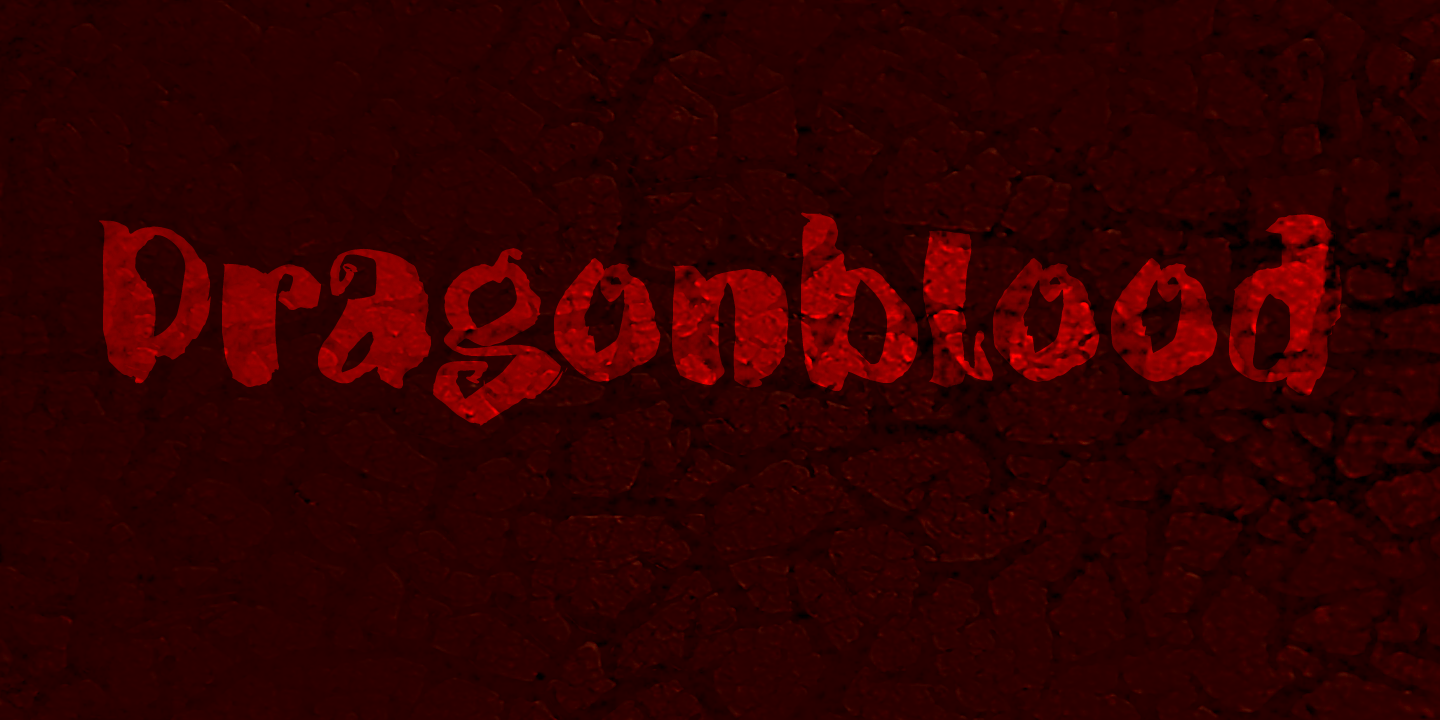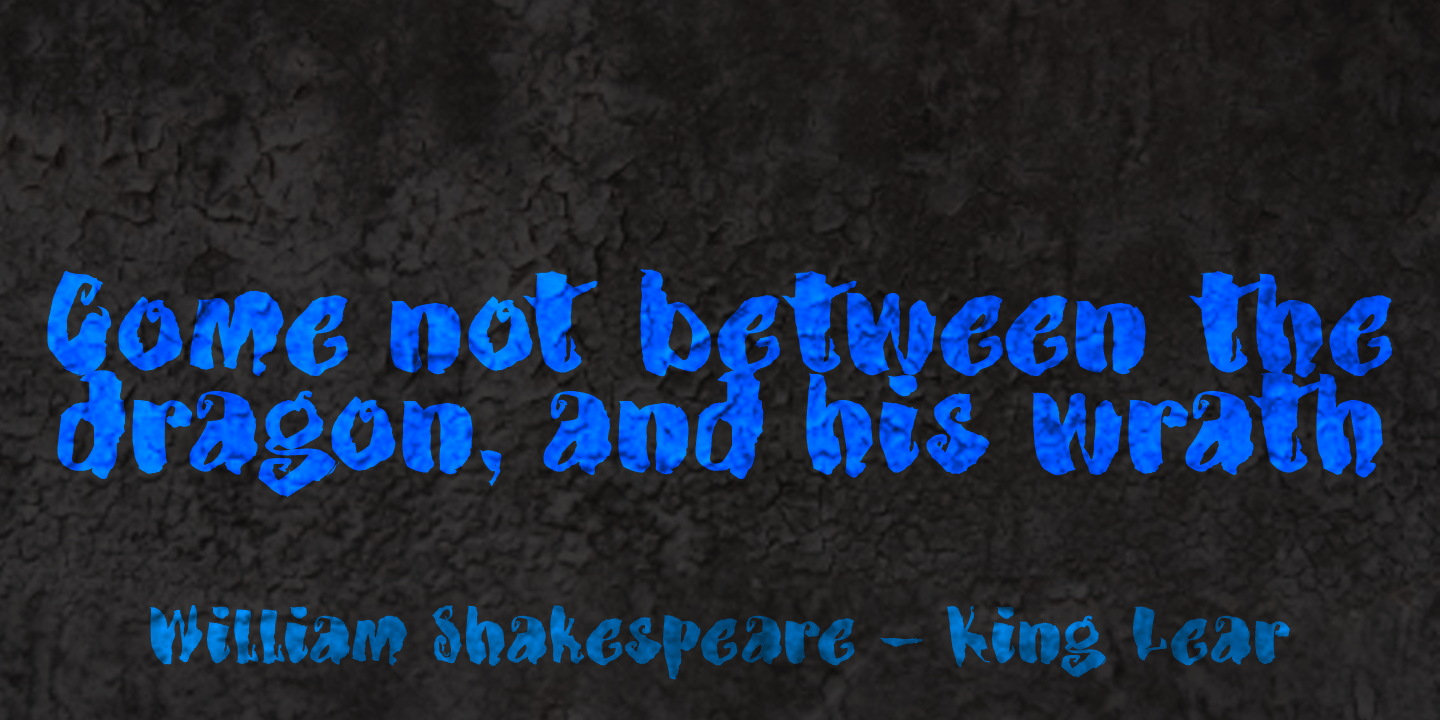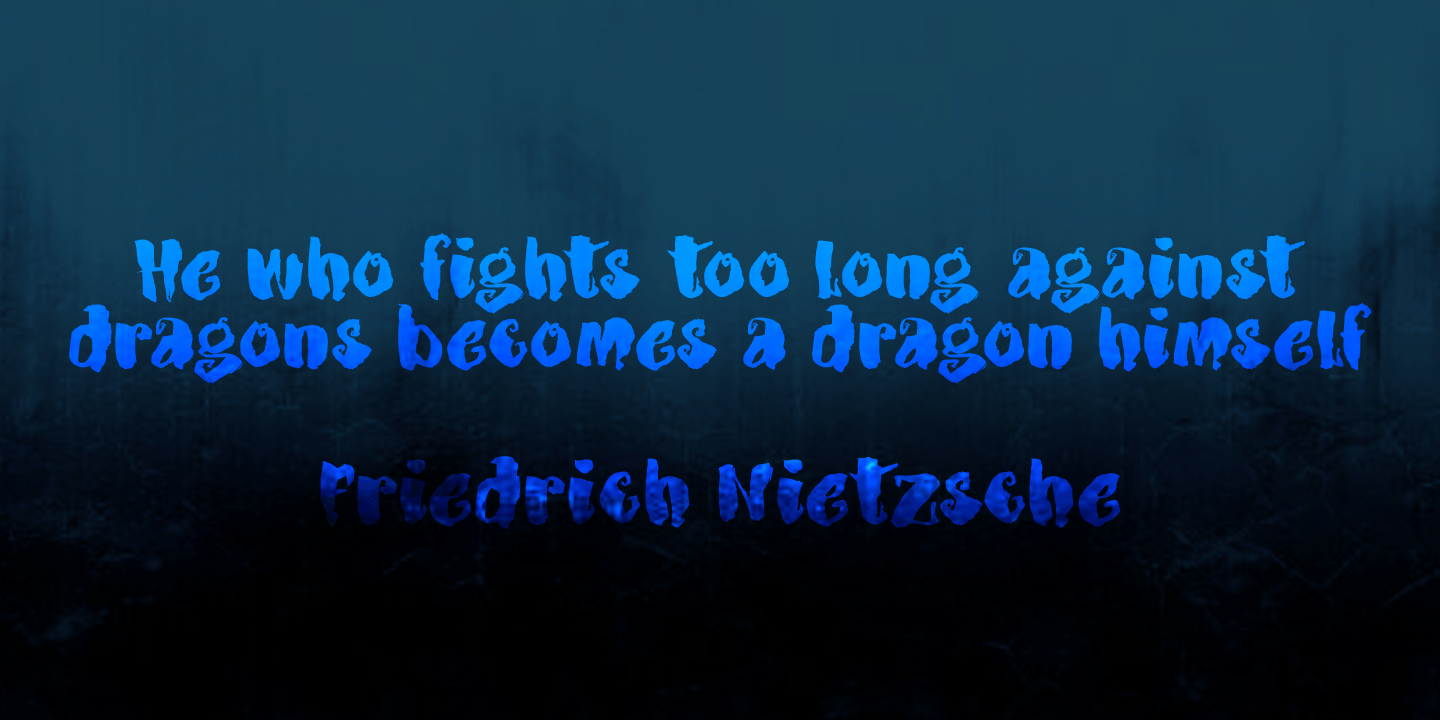
Dragonblood
Dragonblood is quite an unusual font: it was made with Parker ink and a Chinese fur brush. When all the glyphs had been vectorized, and I saw them in a text for the first time, the only appropriate name I could think of was Dragonblood.
Dragonblood comes with a realm of diacritics.